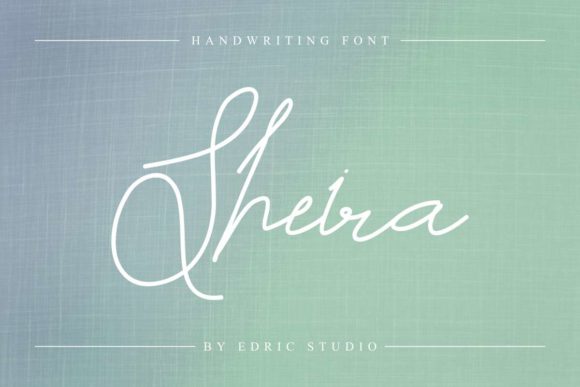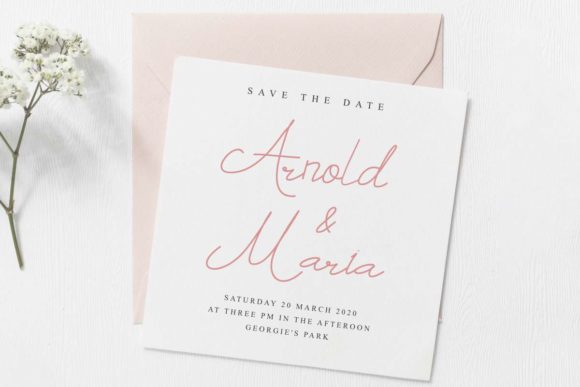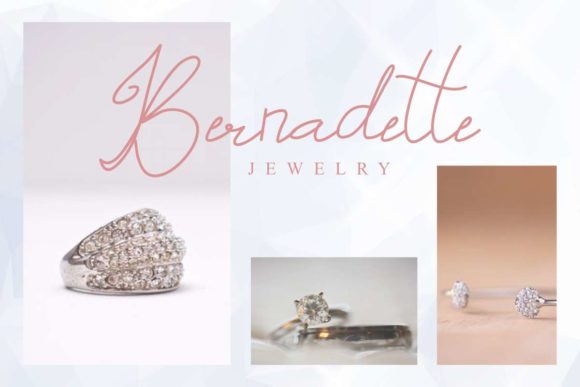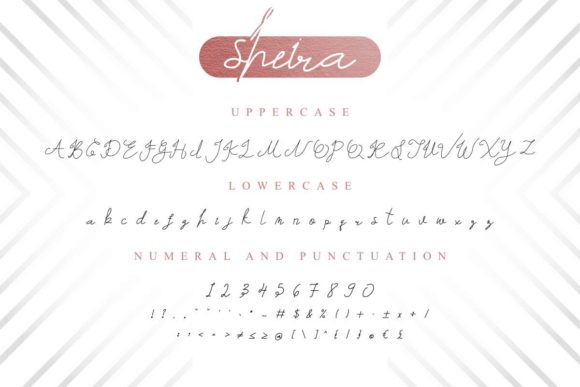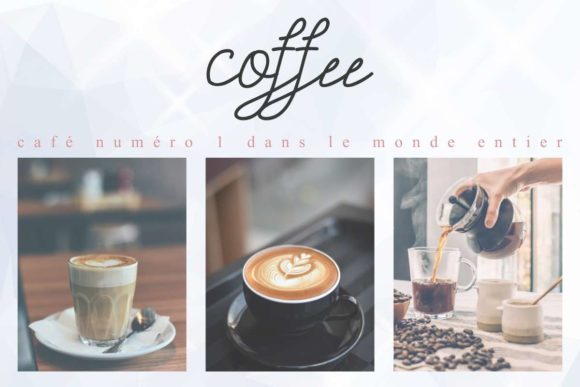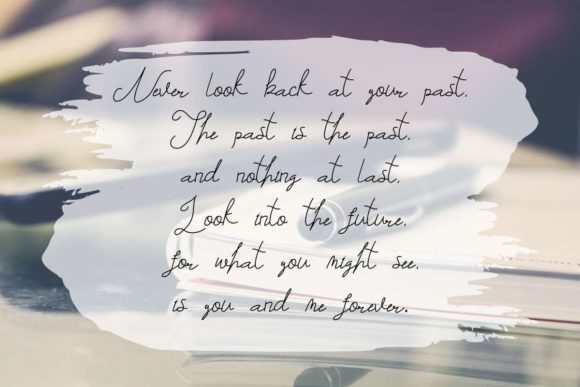
Introduction to Sheira Font
Do you remember that moment when you were working on a creative project and everything just clicked? The perfect combination of colors, typography, and imagery came together to create something truly special? For designers, those moments are what make all the hard work worth it. And that’s exactly what we’re here to talk about – the Sheira Font, a game-changing design resource that can take your projects to the next level.
Whether you’re a seasoned pro or just starting out, the Sheira Font is a must-have for any creative endeavor. With its effortlessly authentic script style, this font is full of charm and character, making it the perfect addition to any design project. And the best part? It’s available for free download, so you can start incorporating it into your work right away.
From logos to graphics, the Sheira Font is a high-quality design resource that can add a touch of sophistication and elegance to any project. And with its transparent background, you can easily layer it over other design elements to create a truly unique look. So why settle for ordinary when you can have extraordinary with the Sheira Font?
Key Features of Sheira Font
- Available in multiple weights and styles for versatile use
- Sheira Font is designed with a modern and elegant aesthetic, perfect for branding and typography projects
- Supports high-resolution displays, ensuring crisp and clear text rendering
Honest Review: Sheira Font
I recently had the chance to work with the Sheira Font, and I’m excited to share my thoughts on this design resource. The Sheira Font is a beautiful, high-quality addition to any creative project.
- High-quality design: The Sheira Font is well-crafted and looks great in various contexts.
- Transparent background: This feature allows for easy customization and blending with other design elements.
- Limited character set: The font seems to be limited to a basic character set, which may not be suitable for all design projects.
- No bold or italic options: This lack of variation can be a drawback for designers who need to emphasize certain text.
Overall, I’m impressed with the Sheira Font’s design quality and versatility. While it has some limitations, it’s still a valuable resource for designers working on creative projects.
Tips for Getting the Most Out of Sheira Font
To make the most of Sheira Font, use it on a transparent background to create a clean and modern design. Experiment with different font sizes and styles to add visual interest to your project. You can also pair Sheira Font with other high-quality fonts to create a unique and professional look.
Sheira Font is perfect for a variety of creative projects, including logos, business cards, and social media graphics. Its modern and sleek design makes it an ideal choice for fashion, technology, and finance brands.